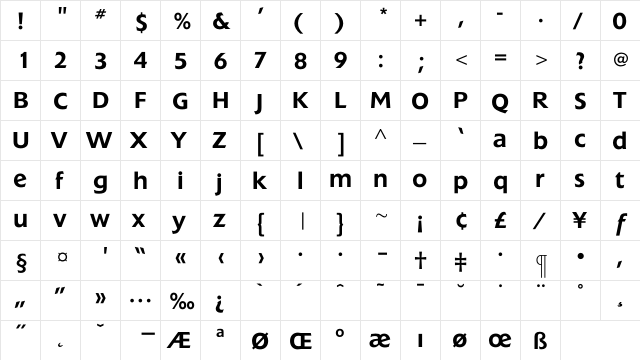
ExtensionMedium Regular
Design Context for ExtensionMedium Typeface
ExtensionMedium offers clean, dependable letterforms without strong stylistic allegiance, making it a practical choice for designers who need flexibility.
Pro Tip: Use ExtensionMedium in both headline and body roles to test its range before committing to a single application.